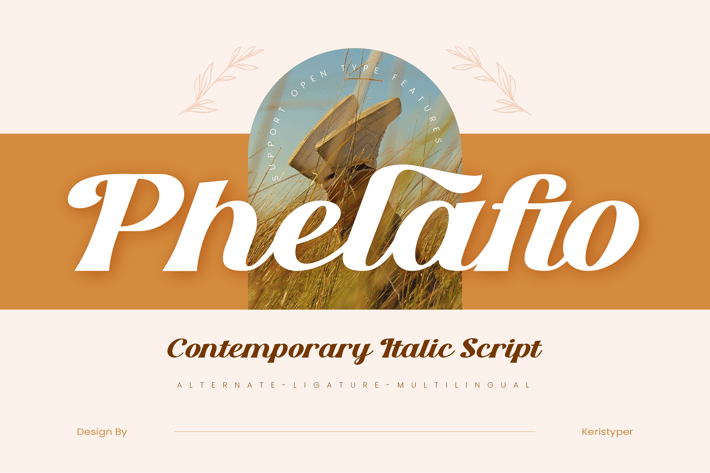
Phelafio Font
Phelafio is a contemporary italic script font with bold contrast, perfect for creating eye-catching designs that demand attention. It's flowing lines and elegant curves give it a unique look that is both modern and classic.
Standard, Uppercase & Lowercase
Multilingual : ä ö ü Ä Ö Ü ß ¿ ¡
Alternate & Ligature